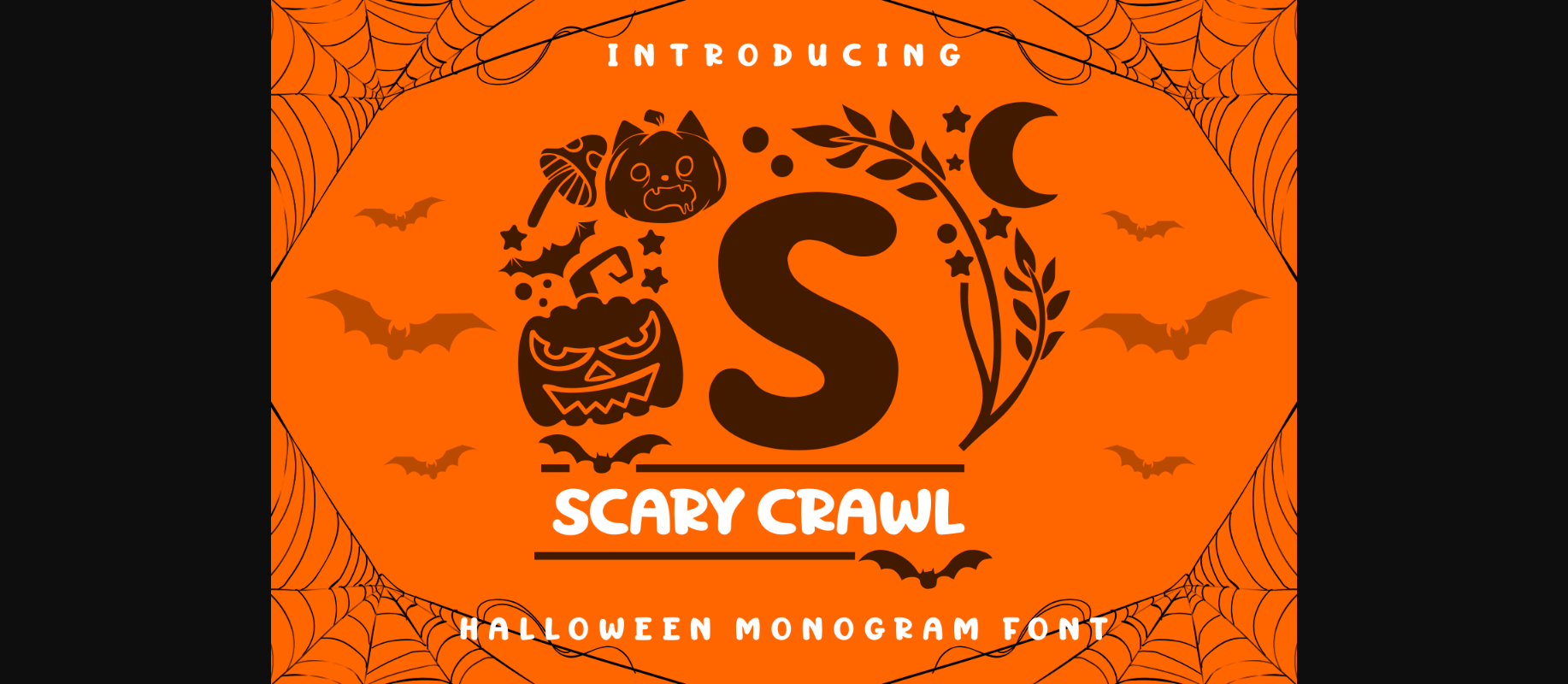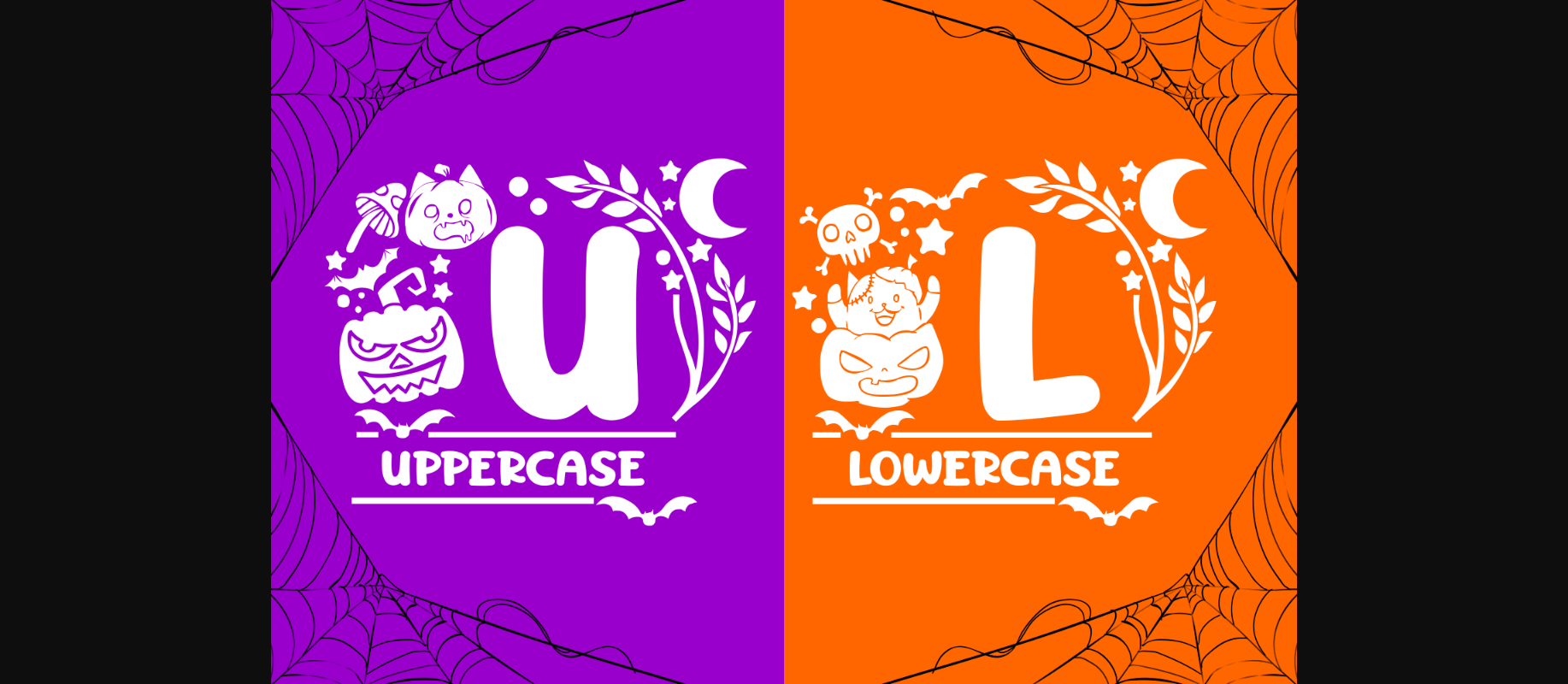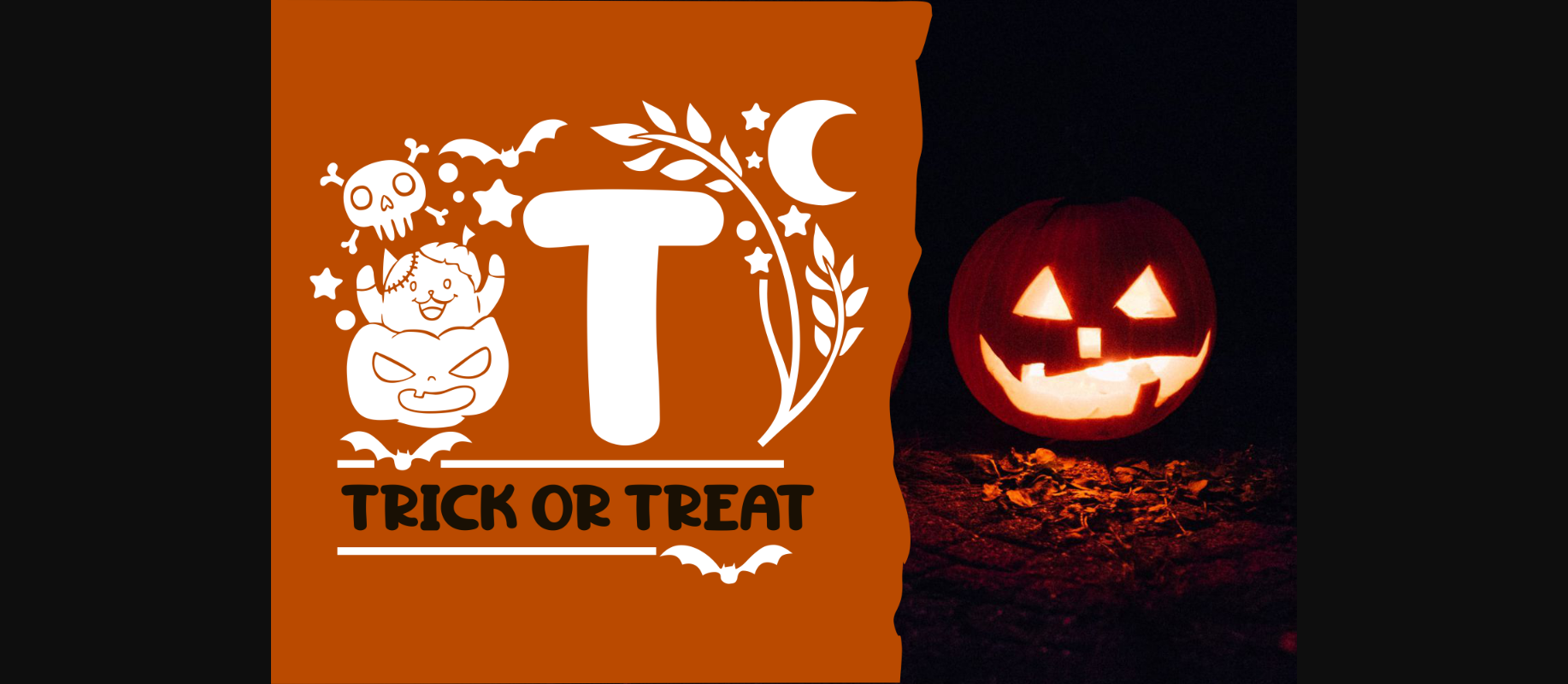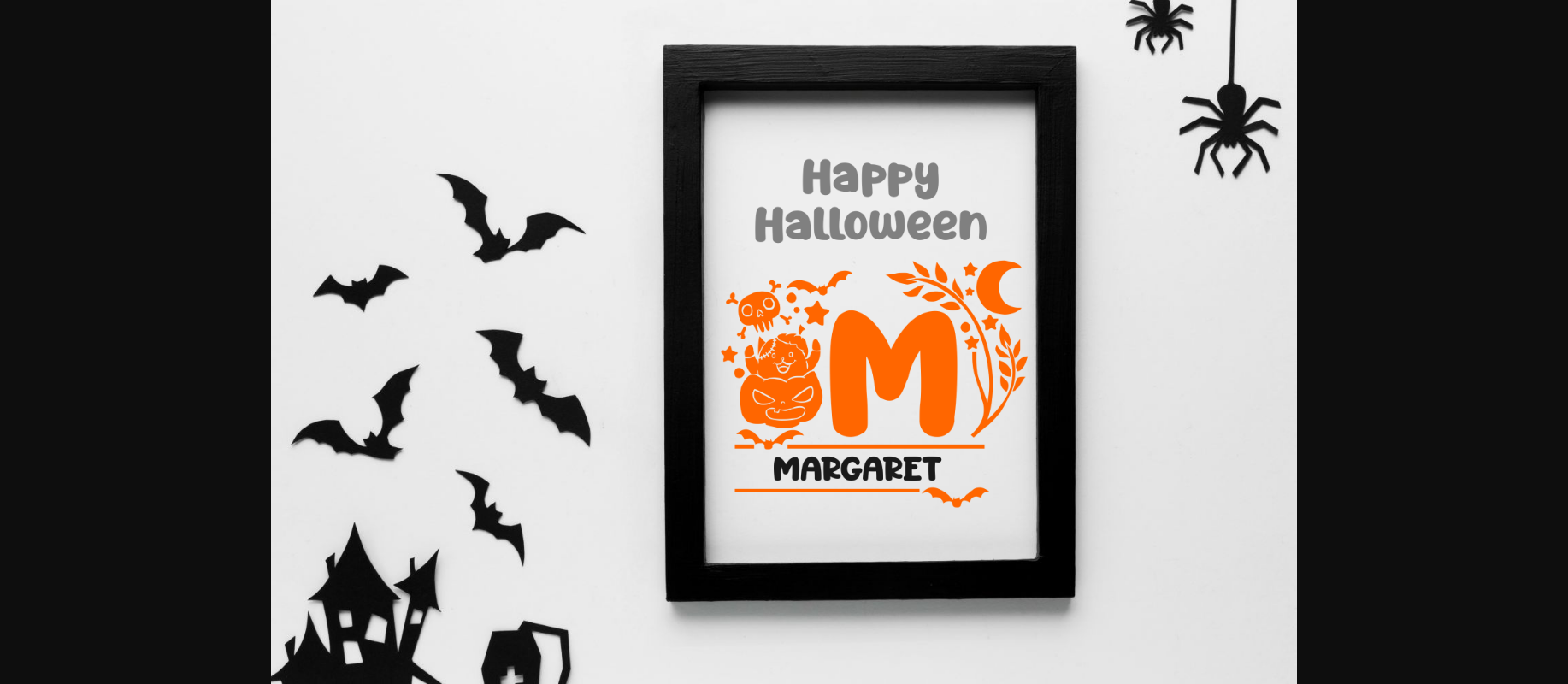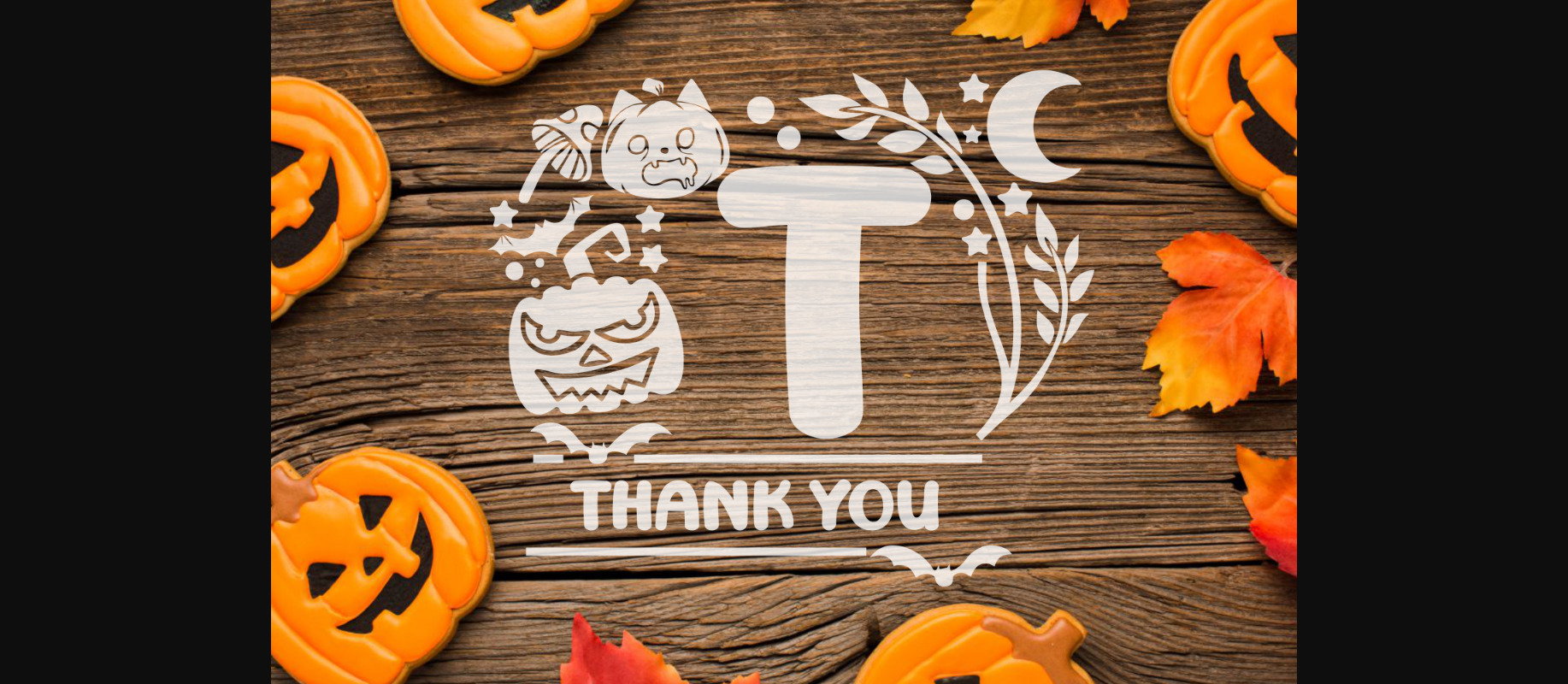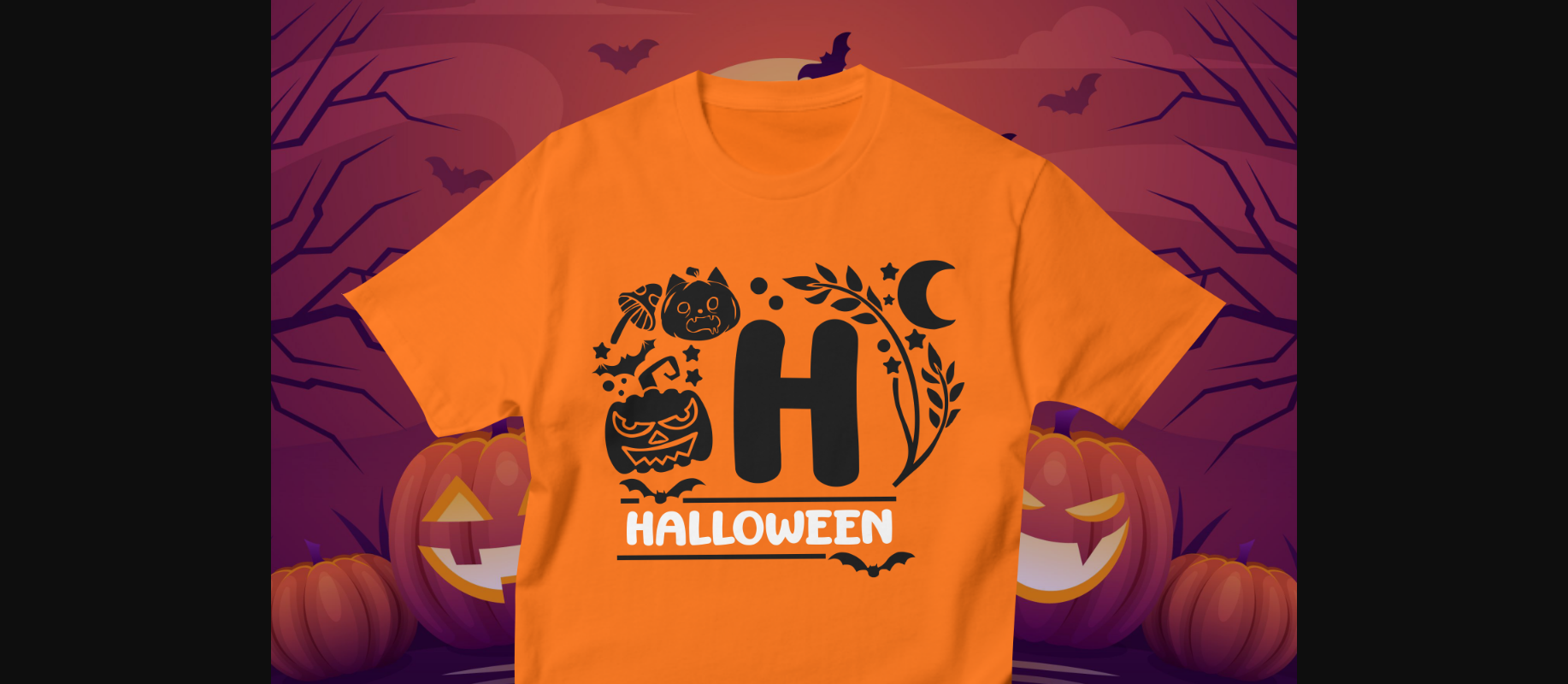
About Scary Crawl Font
Scary Crawl is a cool, spooky and detailed decorative font. This original look will appeal to a wide range of crafty ideas, from letterheads and titles, to stationery.